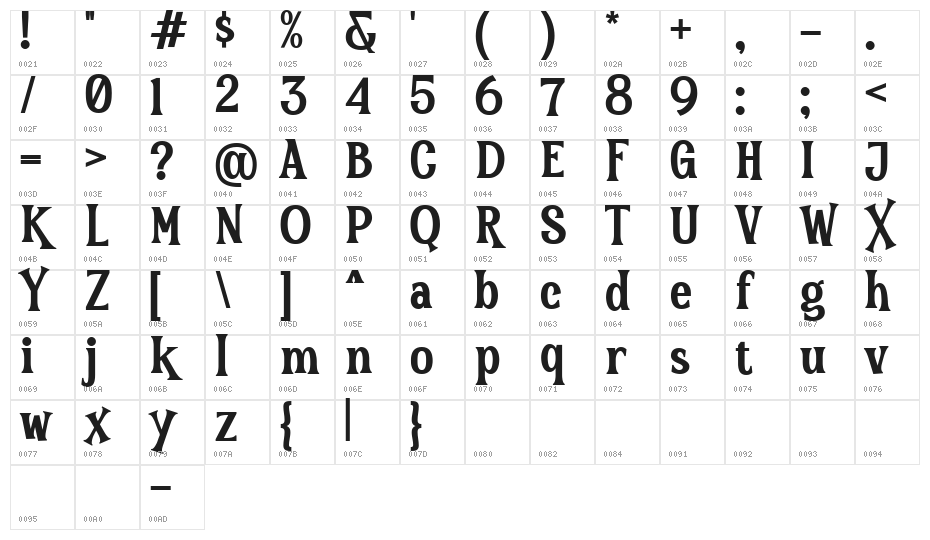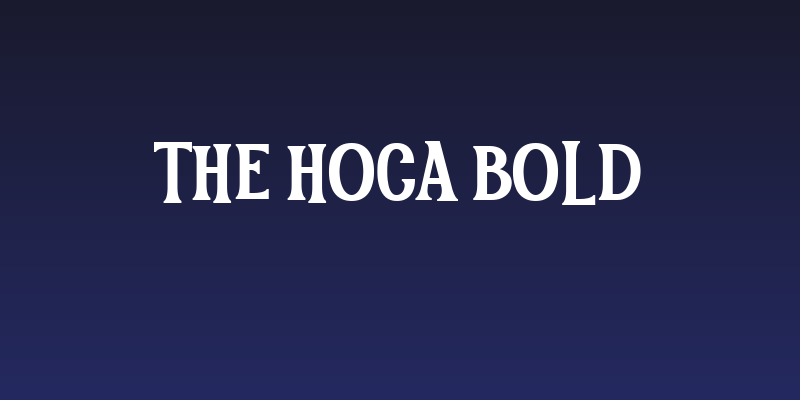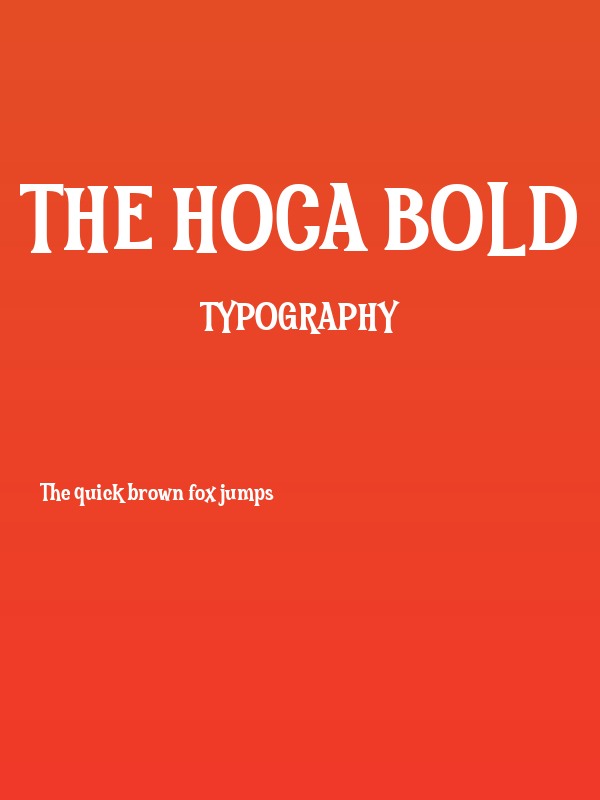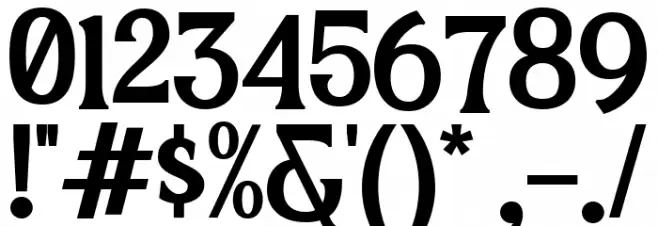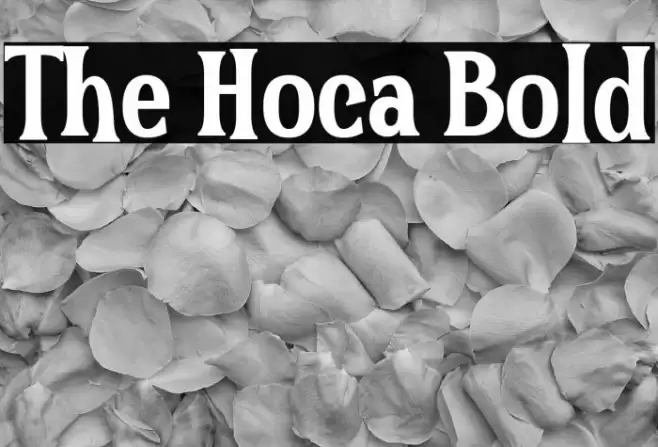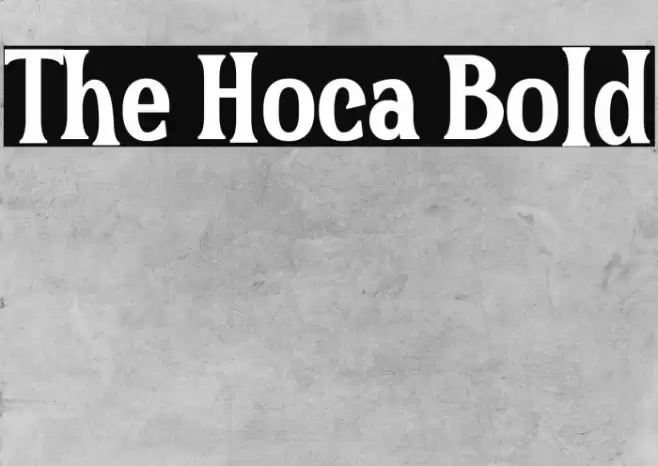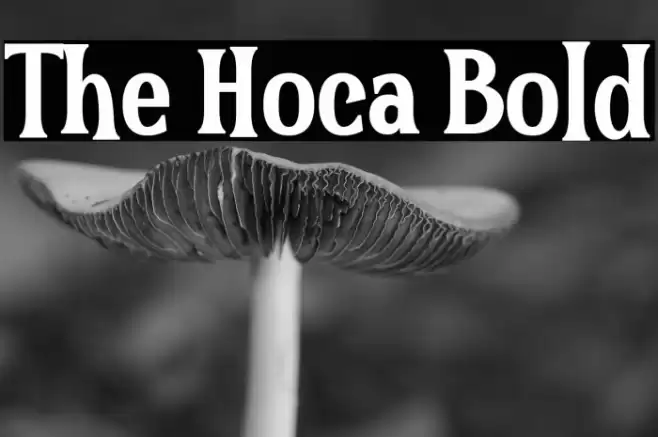
The Hoca Bold Font
The Hoca Bold Description
This font features a bold and striking design with thick, prominent strokes that give it a commanding presence. The serifs are pronounced, adding a touch of classic elegance while maintaining a modern flair. The characters exhibit a slight curvature, lending a sense of fluidity and movement. The uppercase letters are robust and authoritative, while the lowercase letters maintain a consistent style that complements the overall aesthetic. The numerals are equally bold, ensuring readability and impact. Special characters are well-integrated, maintaining the font's cohesive style.
| Proposed Projects | Ideal for headlines, posters, branding, and any project requiring a bold, impactful typeface. |